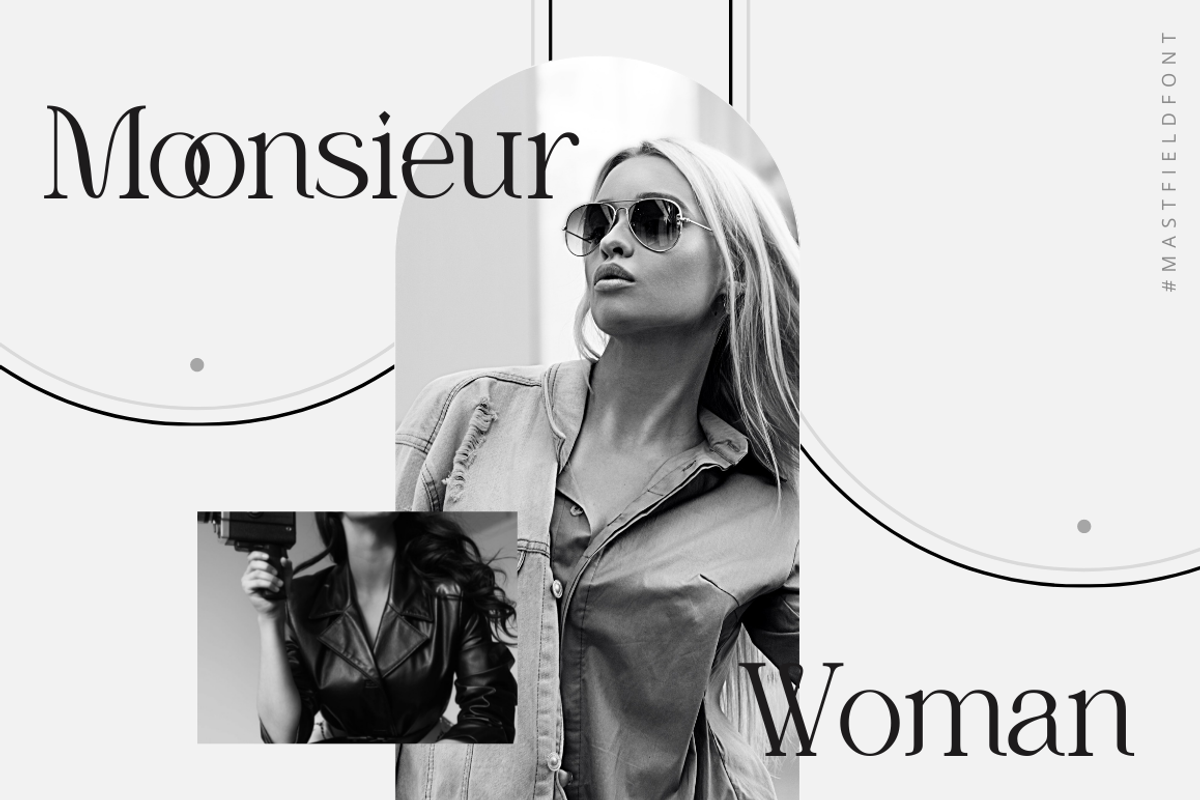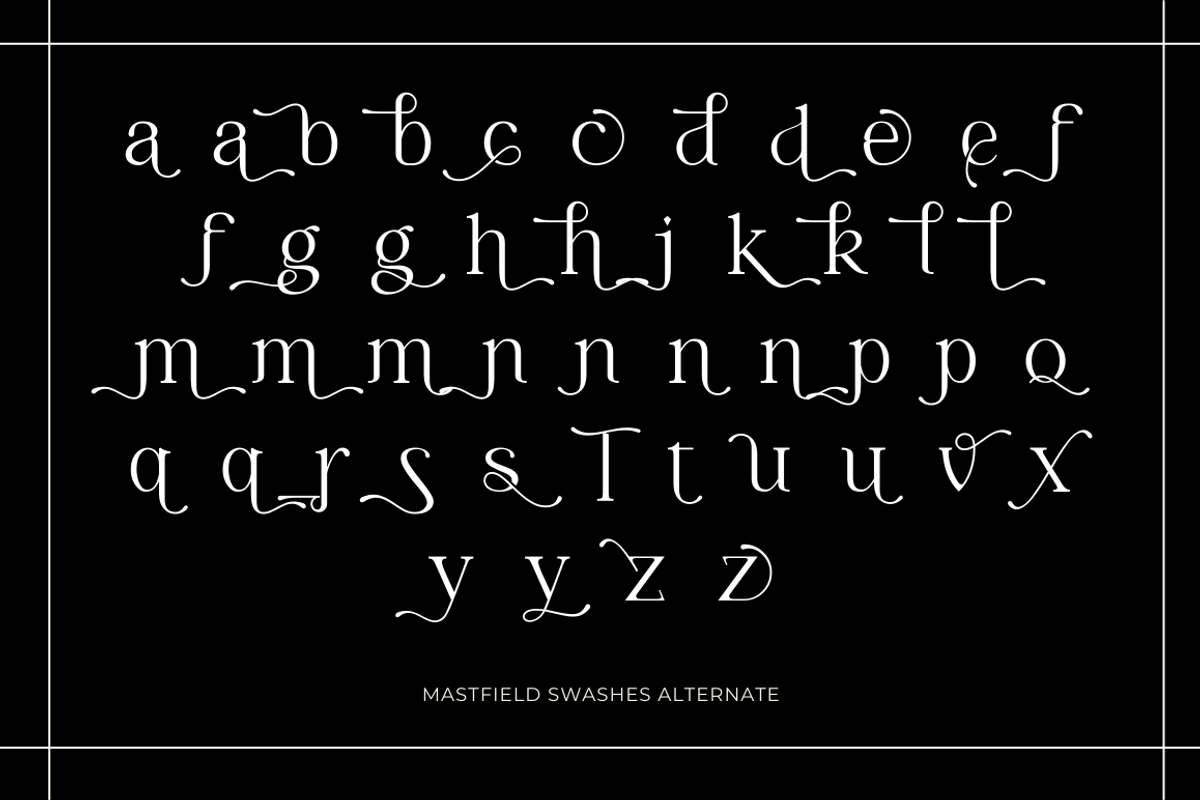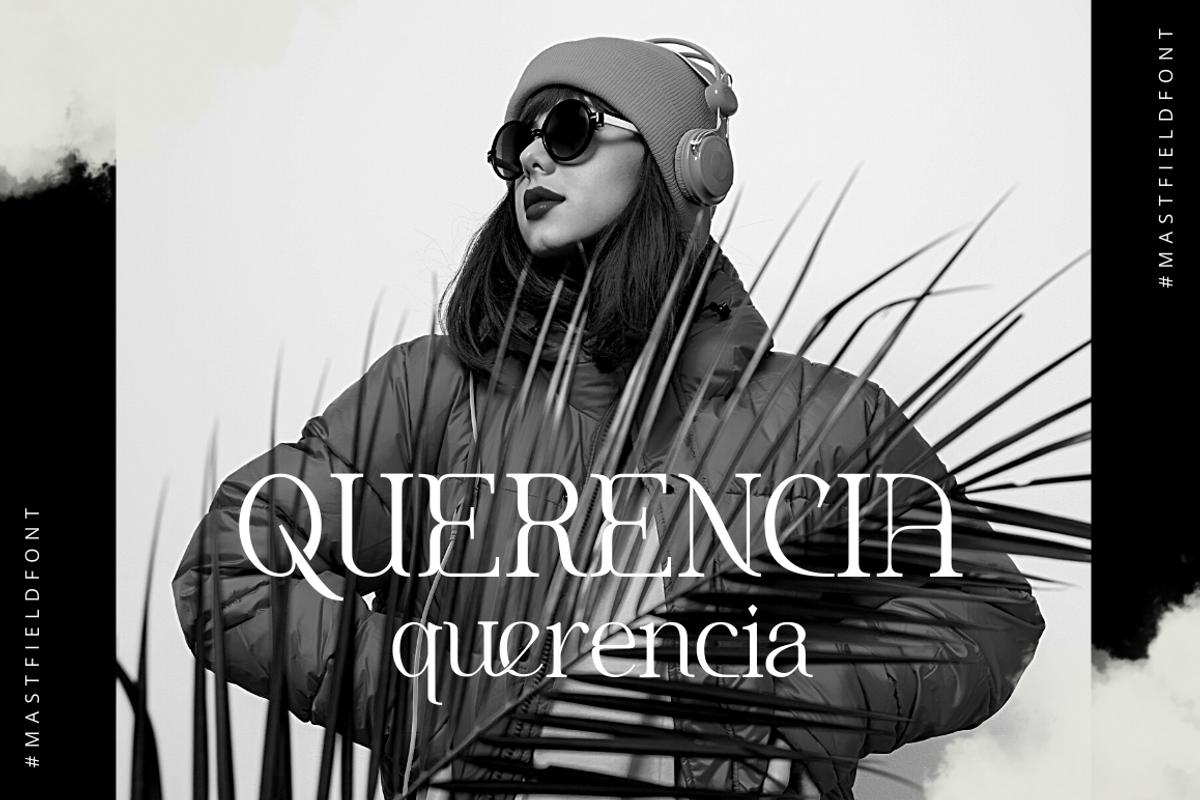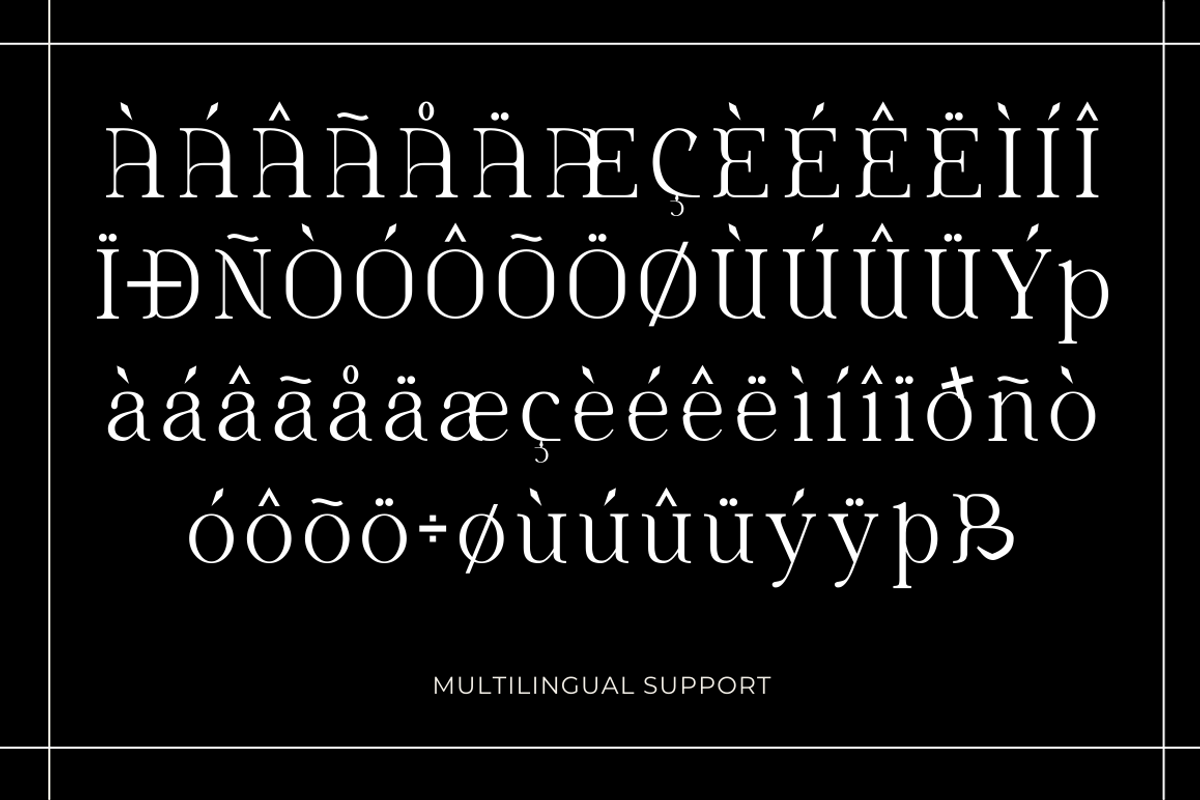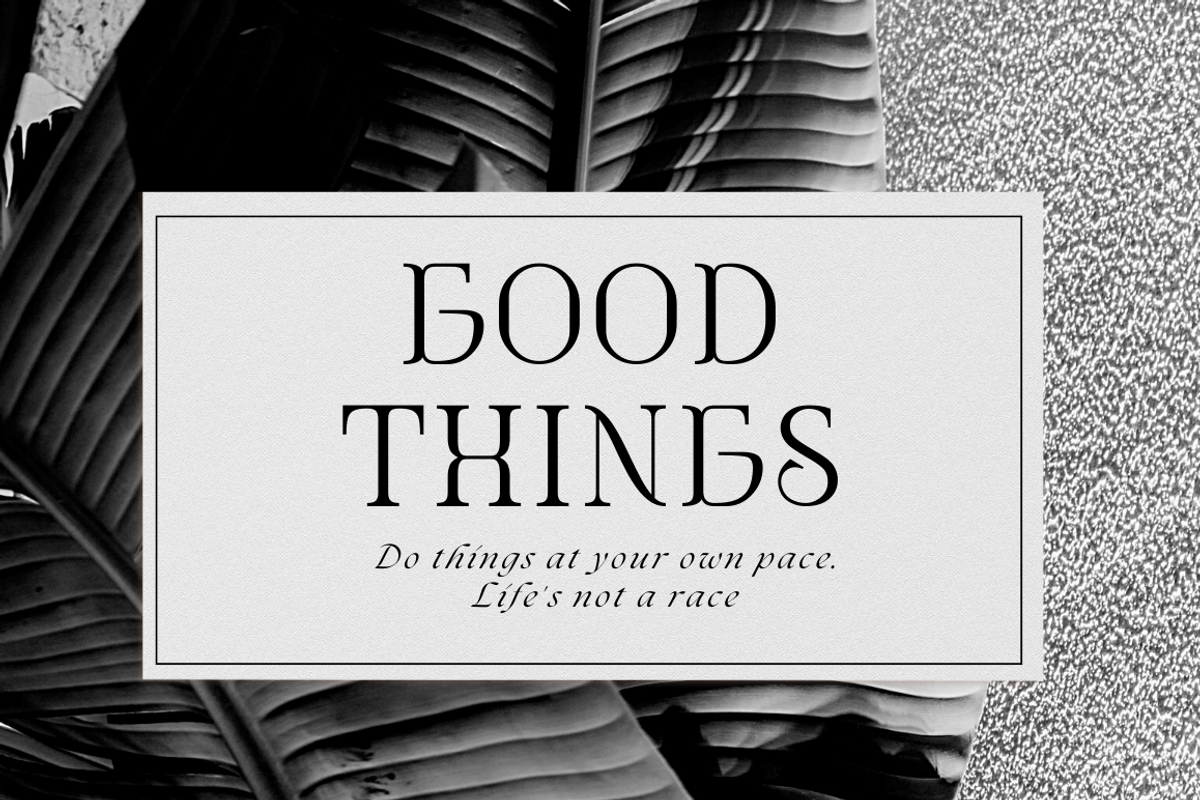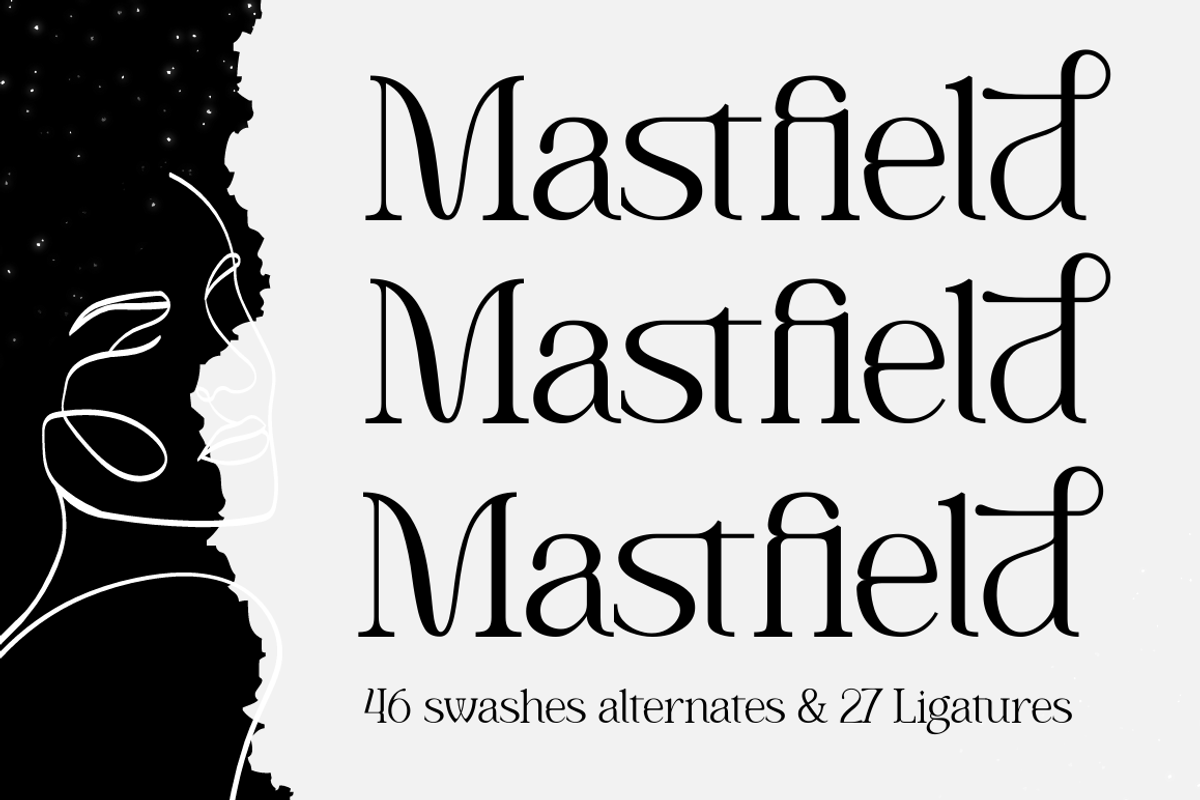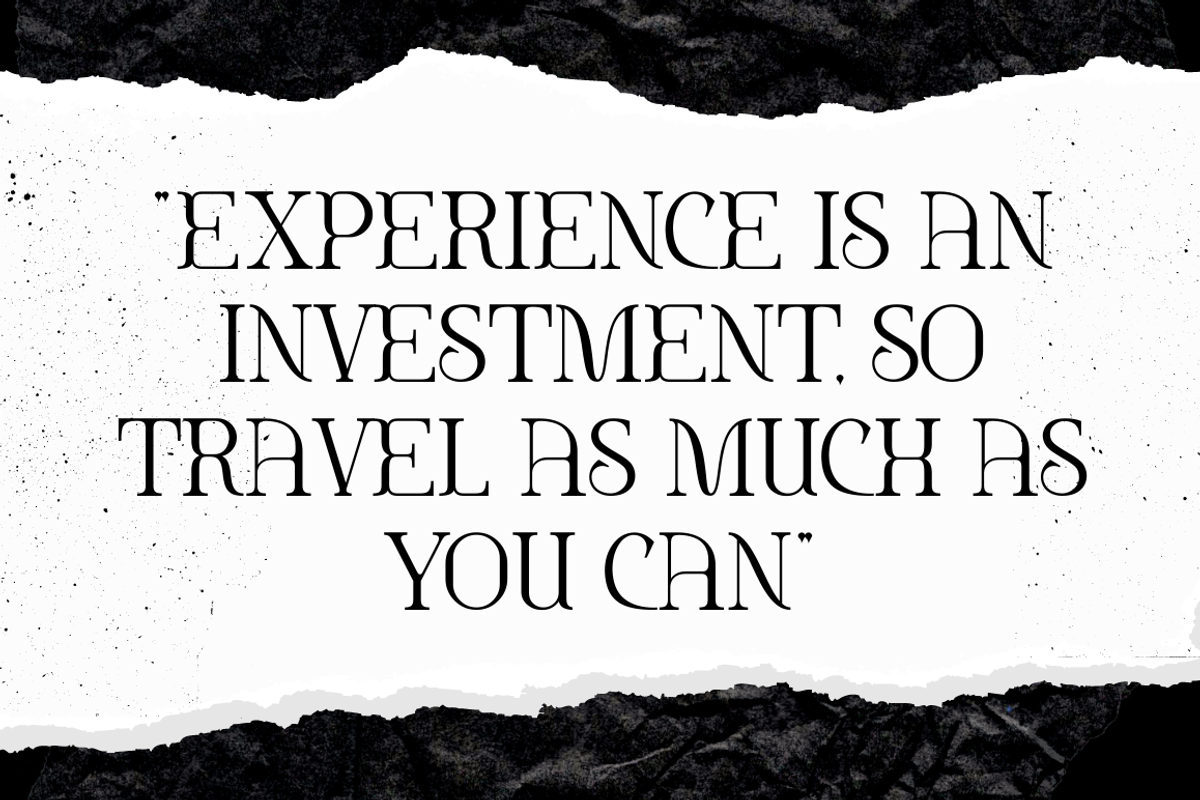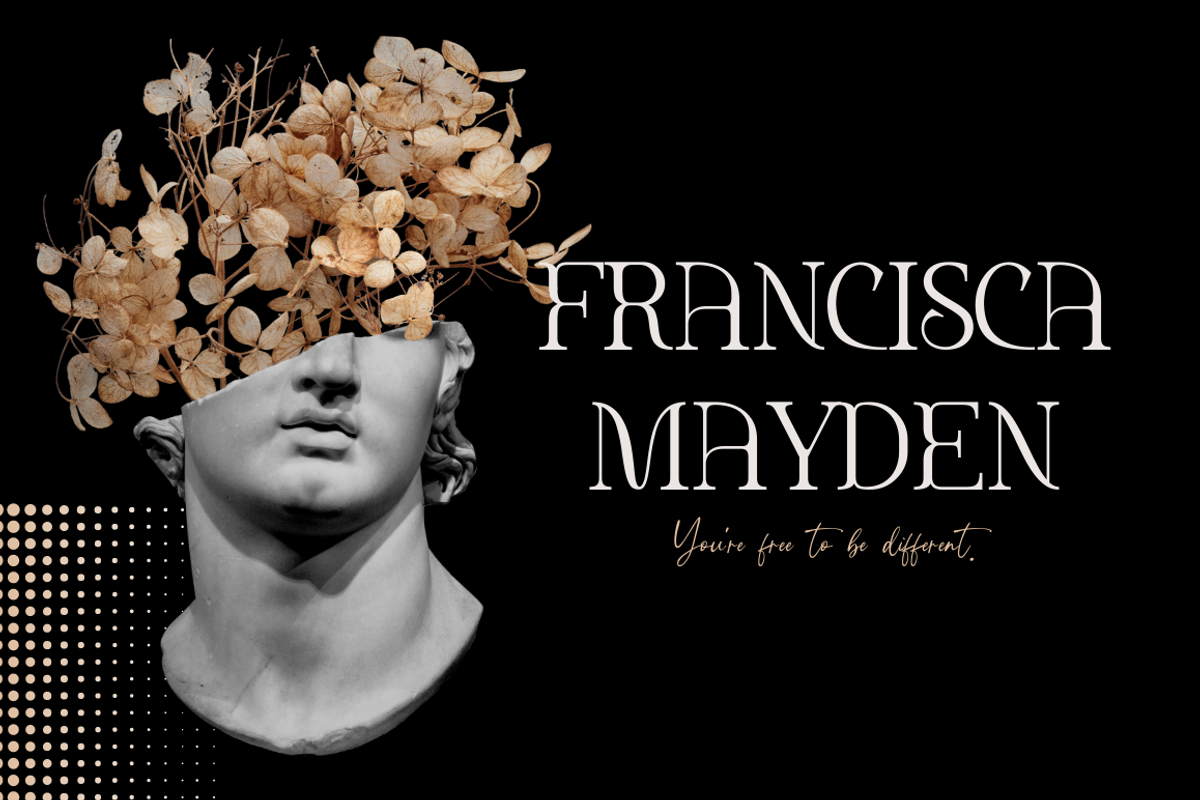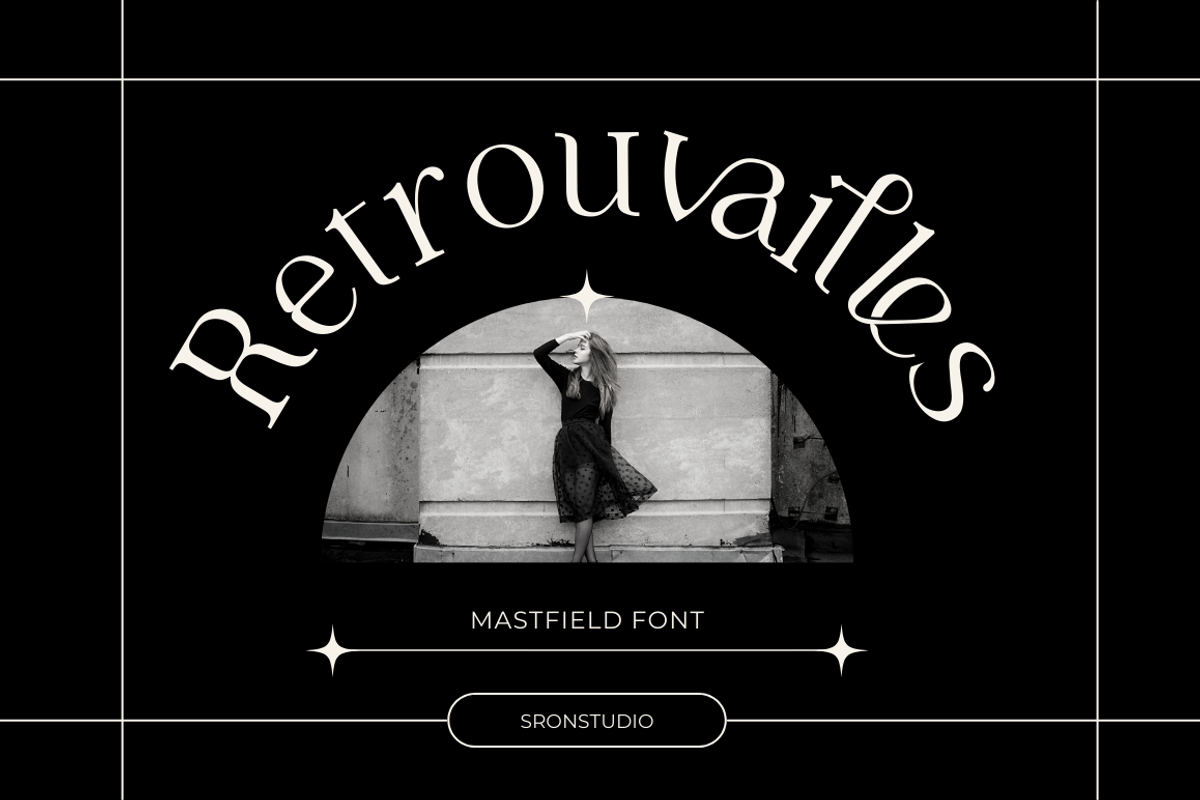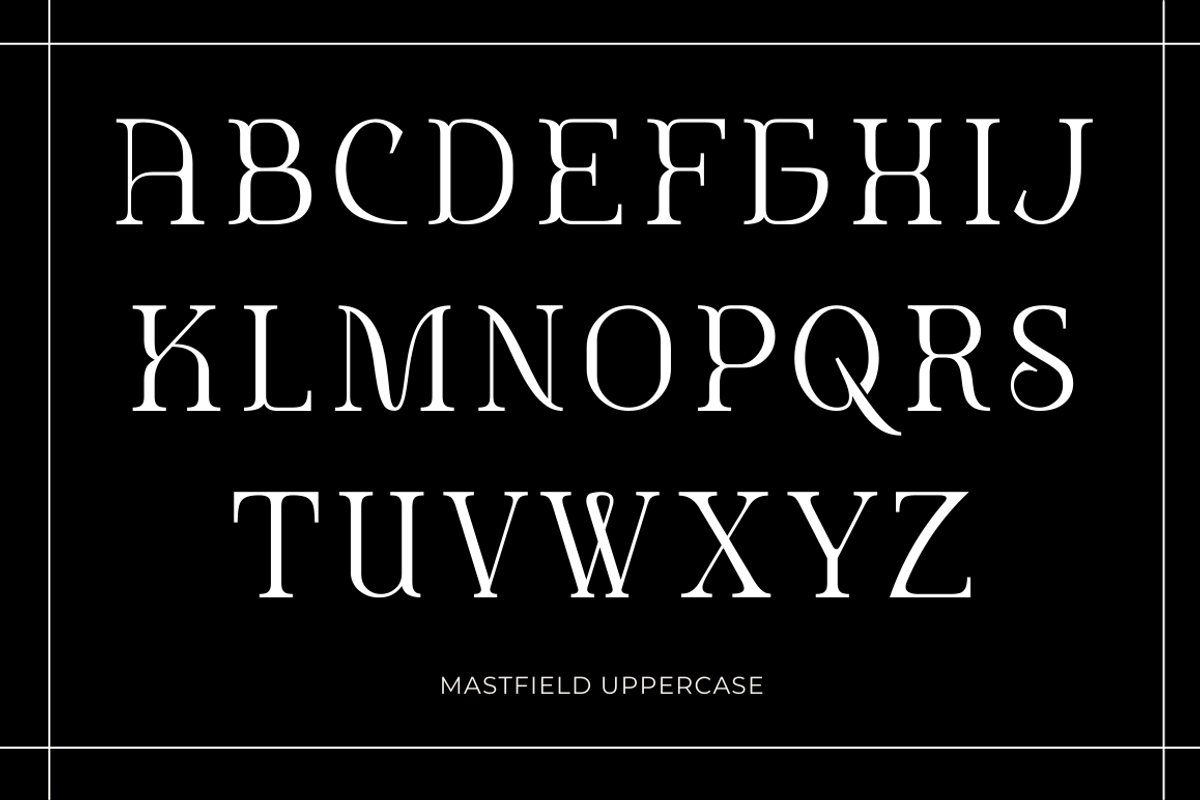
Mastfield - Modern Display Font
Mastfield – Modern Serif, comes with an elegant and modern touch this font is perfect for branding, invitation, stationery, wedding designs, social media posts, advertisements, product packaging, product designs, label, photography, watermark, and special events, and more.
- Uppercase and lowercase letters
- 46 Alternates Swashes
- 27 Ligatures
- Multilingual, numerals, and punctuation